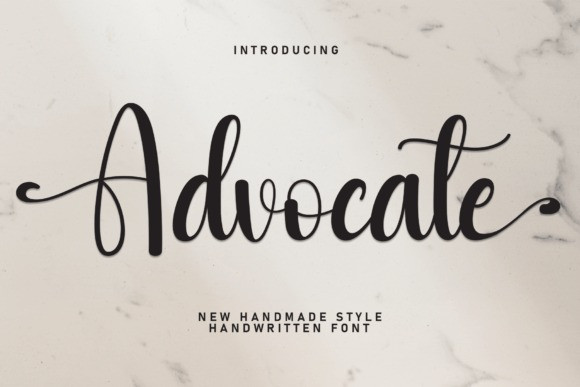
Advocate Script Font
Advocate Script Font is a sweet and friendly handwritten font. Fresh and cute, this font is ideal for writing wedding invitations, cards, or any other design that might need a fun touch!